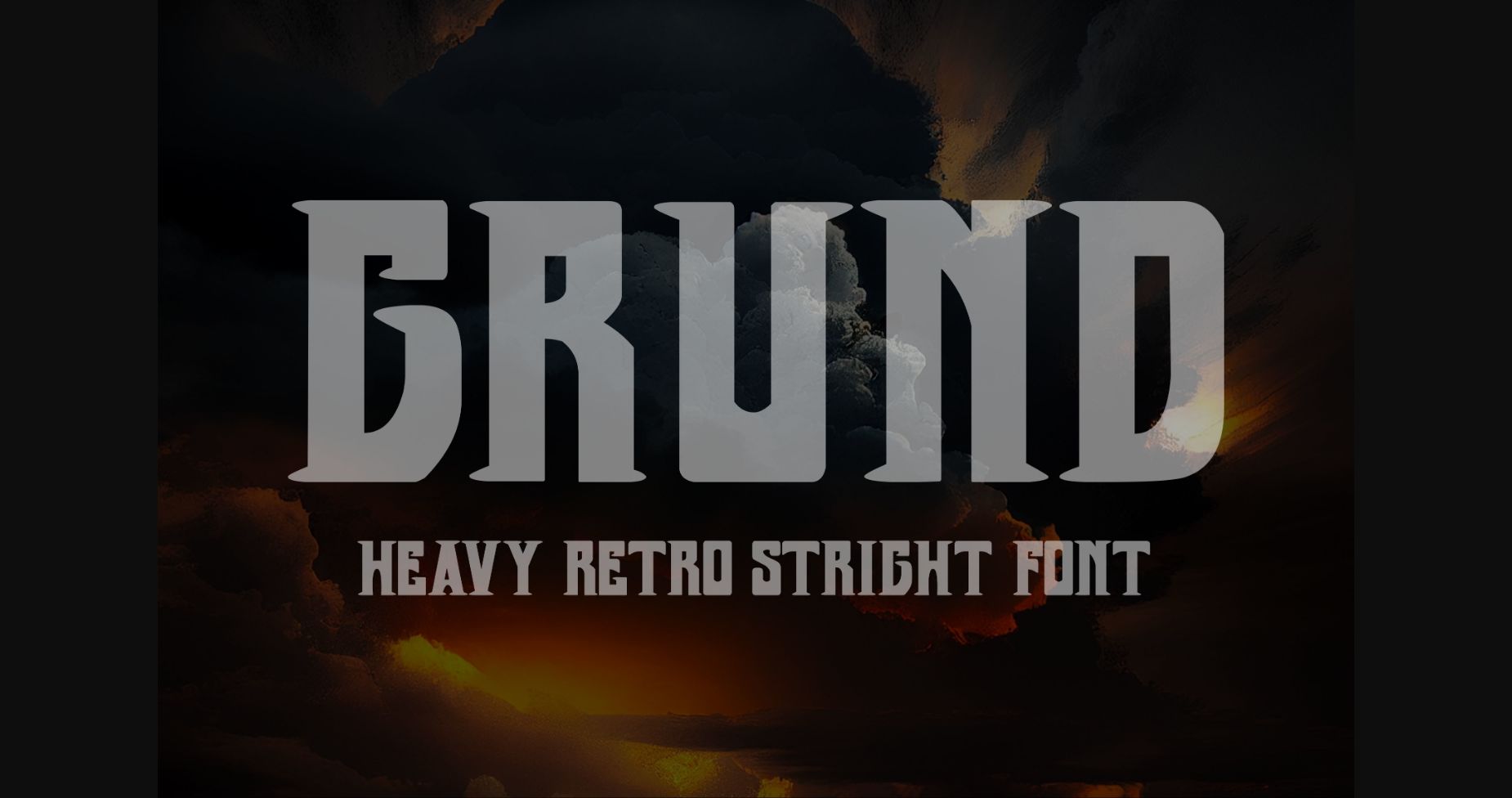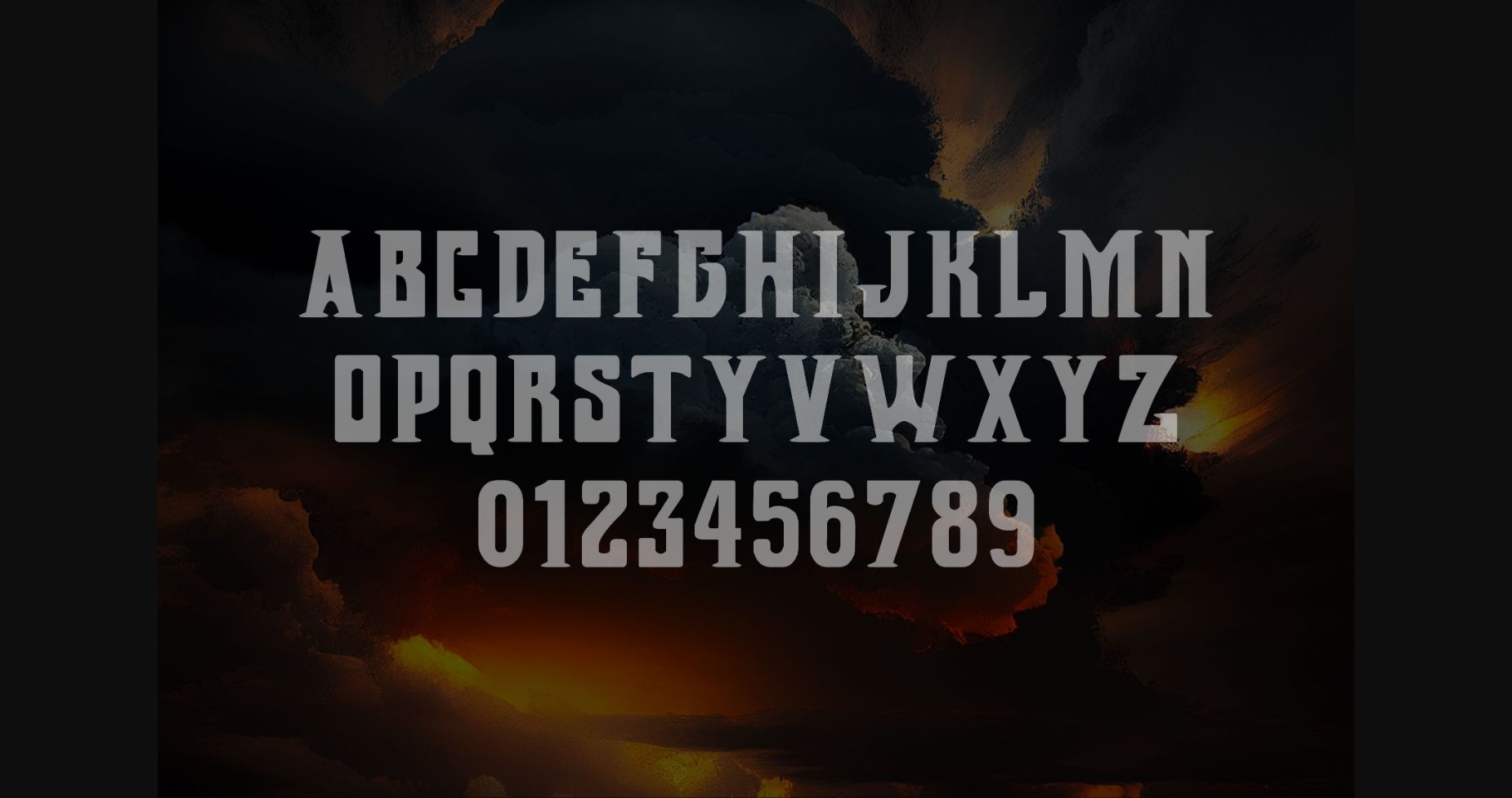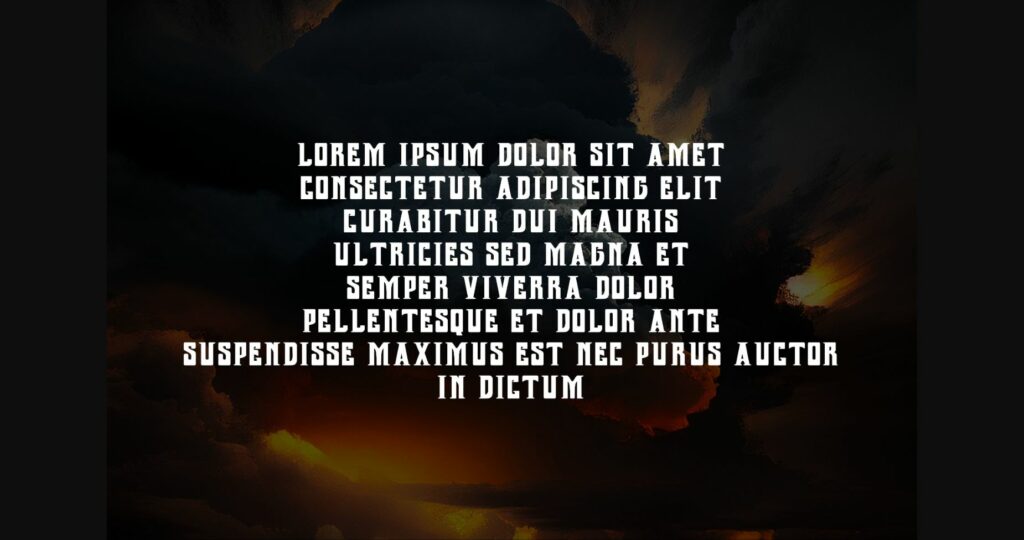
Grund Font
About Grund Font
Grund Is a retro sans serif font. It is perfect for a wide variety of projects that call for bold, retro lettering with character.